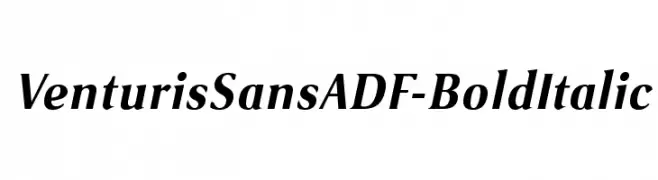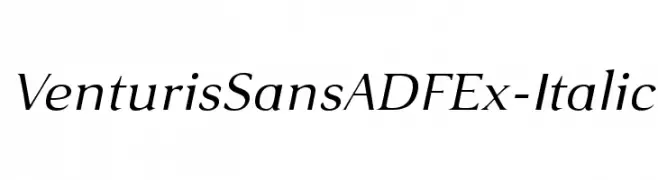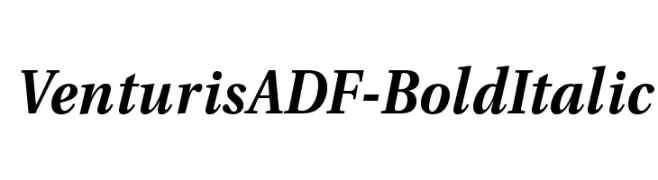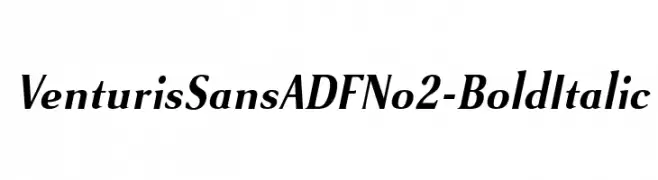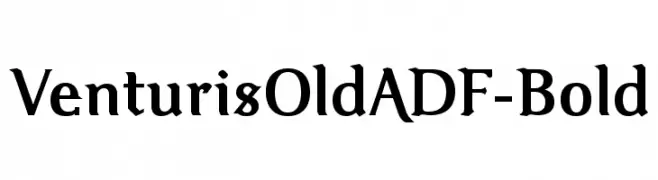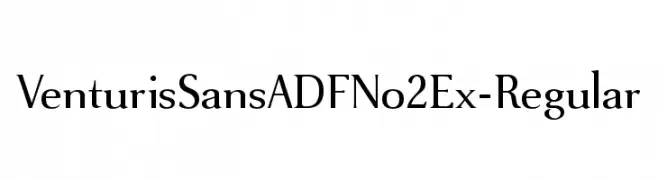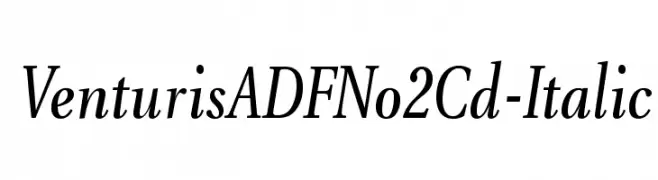
An elegant, italicized font with smooth curves and a classic style.
A bold, italicized font with strong, dynamic letterforms.
A classic serif font with elegant strokes and balanced proportions.
An elegant italic font with balanced proportions and classic styling.
A bold, italic serif font with a classic and elegant style.
A bold, italicized serif font with a dynamic and elegant appearance.
A bold, classic serif font with elegant curves and flared serifs.
A refined serif typeface with balanced proportions and classic elegance.
A classic italic serif font with elegant proportions and moderate contrast.
A bold and italicized font with a dynamic and elegant style.